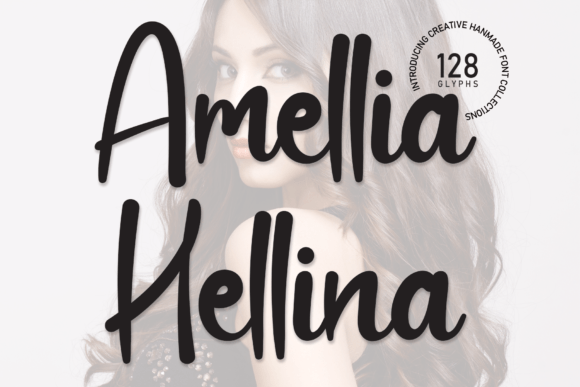
The Perfect Touch: Amellia Hellina Font
Have you ever found yourself stuck in front of your computer, struggling to find the perfect font to match your creative vision? We’ve all been there – scrolling through endless options, trying to find that elusive combination of style and character. But what if we told you that we’ve discovered a font that will make your designs shine?
Meet Amellia Hellina Font, a sweet and friendly handwritten font that’s sure to bring a touch of warmth to your next project. Whether you’re designing wedding invitations, cards, or any other design that needs a little extra love, Amellia Hellina Font is the perfect choice. Its fun and relaxed style makes it ideal for designers who want to add a personal touch to their work.
Amellia Hellina Font Key Features
- Font Style: Script
- Unique Characteristics: Elegant and luxurious script font, suitable for wedding invitations, certificates, and formal events.
Amellia Hellina Font Review
As a designer, I had the chance to work with the Amellia Hellina font, and here’s my honest review.
- Unique and mysterious vibe: Amellia Hellina exudes a sense of mystery and elegance, making it perfect for dark, gothic, or mystical designs.
- Highly customizable: The font offers a wide range of options for customization, from ligatures to swashes, allowing designers to add a personal touch.
- Legible at various sizes: Despite its intricate design, Amellia Hellina remains legible even at small font sizes, making it suitable for body text or headlines.
- May be overwhelming for simple designs: The font’s intricate design may overpower simpler designs, making it difficult to balance the overall aesthetic.
- May not be suitable for digital displays: The font’s ornate details may not display well on low-resolution screens or digital devices.
Overall, I think Amellia Hellina is a great choice for designers looking to create a unique, mysterious atmosphere in their designs. While it may have some limitations, its customization options and legibility make it a versatile font that can be used in a variety of contexts.
The Amellia Hellina font is ideal for creative and artistic projects, such as:
Alternatives to Amellia Hellina Font